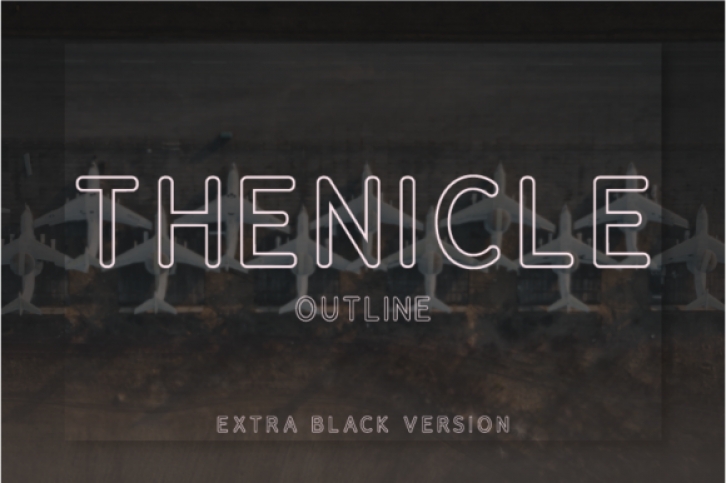
Thenicle is a distinct, elegant sans serif font. It features modern and fancy characters that will look particularly adept when used in logos, branding, packaging design, and much more. This masterfully designed Thenicle is a true must-have.